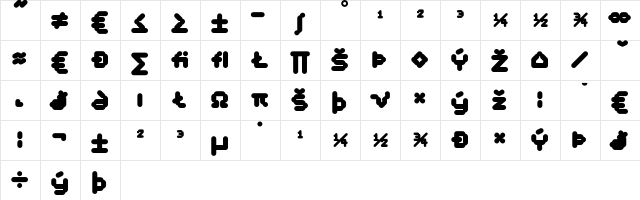
Koko ThreeExpert
Design Context for Koko Typeface
Koko offers clean, dependable letterforms without strong stylistic allegiance, making it a practical choice for designers who need flexibility.